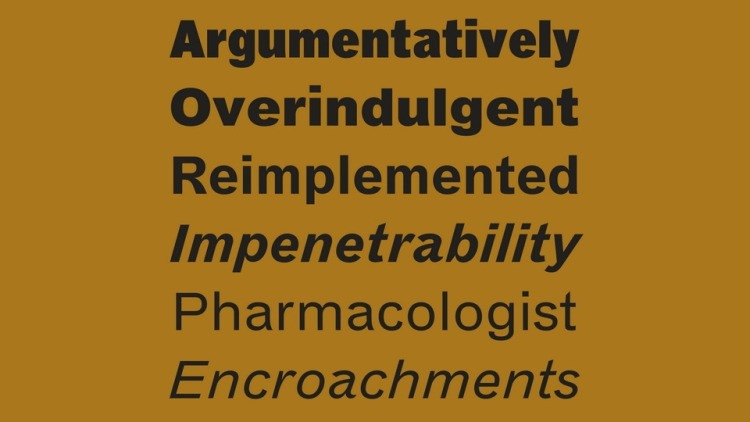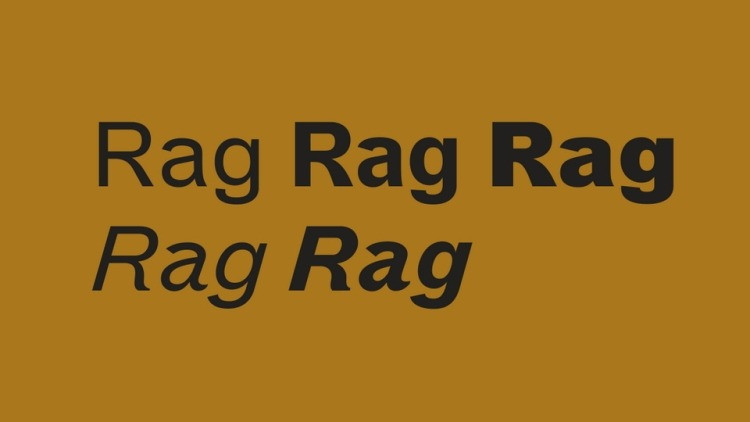
Rag Font Family
Rag Sans Serif Font is a rhythmic geometric grotesque which takes inspiration from the precise yet imperfect nature of time. It’s a grotesque with an informal tone, drawn to fill a need for something broadly useful, unpretentious, vulgar, a little bit crude, and free.
The family structure is modelled on Arial, which comprises a very functional set of styles. Rag’s italic weights are slightly distinct with some different logic and flair.